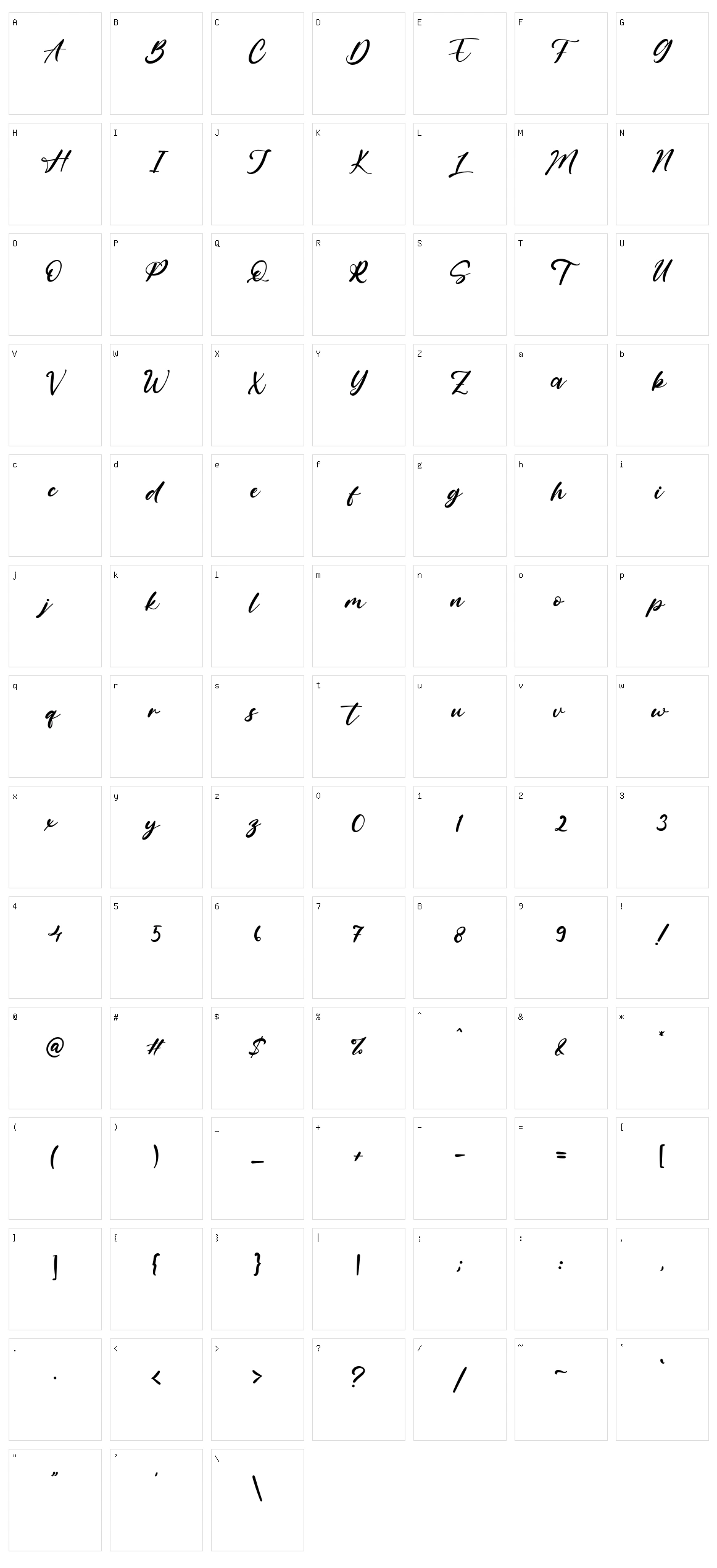
The free font Lanitos Falls is carefully designed by Kong Font, showcasing a thoughtful balance of creativity and usability and falls under the Script font style. When you download the ZIP file, it contains only 94.22 KB of font files, making it lightweight and quick to download. Please review the license details below to understand permitted usage and distribution rights. If license information is not available, we recommend using this font for personal projects only or contacting the author directly for commercial usage permissions.